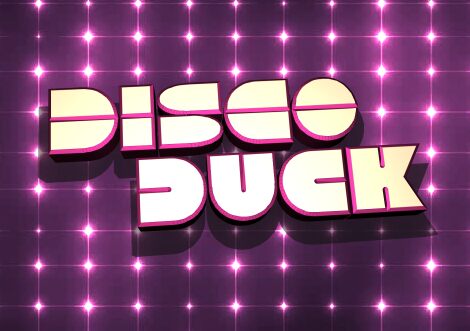
Disco Duck
Disco Duck font by Iconian Fonts is a free groovy display typeface with bold, sliced letterforms that feel like neon lights cut from thick vinyl. The chunky semicircles and tight curves give every word a bouncing, syncopated rhythm, like a bassline pulsing across a dance floor. Its heavy, inky shapes read clearly even at a distance, so a single word can hit as hard as a full poster.
Using Disco Duck, you can amp up retro party posters, club flyers, album covers, DJ logos, social media promos, and event tickets. This free font shines when it’s big and loud; keep it for headlines and pair it with a simple geometric sans serif for small text. Set it in high contrast colors-electric yellow on black, hot pink on navy-and the letters practically throb off the screen.